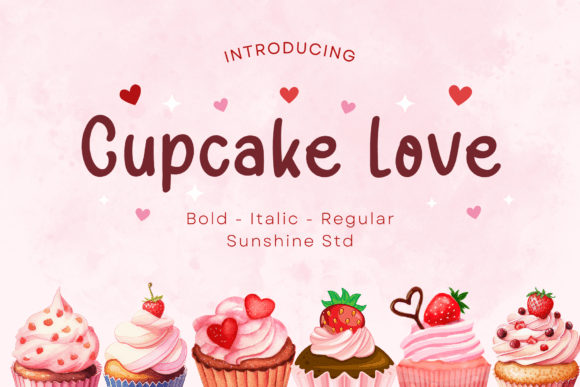
Cupcake Love Font: The Sweetest Addition to Your Design Collection
Are you looking for a font that can add a touch of sweetness and charm to your designs? Look no further than Cupcake Love, the delightful handwriting font that is inspired by the joy of baking and the whimsical nature of childhood treats.
What is Cupcake Love Font?
Cupcake Love is a handwriting font that is designed to bring a sprinkle of fun and playfulness to your designs. With its whimsical and curly letters, this font is perfect for those who want to add a personal touch to their projects. Whether you’re designing a logo, a greeting card, or a social media post, Cupcake Love is sure to make your design stand out.
Inspiration Behind Cupcake Love
The inspiration behind Cupcake Love comes from the joy of baking and the magic of childhood treats. Who doesn’t love a good cupcake? The colorful sprinkles, the creamy frosting, and the moist cake all come together to create a treat that is both delightful and Instagram-worthy. With Cupcake Love, you can bring that same sense of joy and whimsy to your designs.
Features of Cupcake Love Font
So, what makes Cupcake Love so special? Here are just a few of its key features:
• Handwritten letters: Each letter in Cupcake Love is carefully crafted to look like it was written by hand. This gives the font a personal and playful touch that is perfect for a variety of designs.
• Whimsical and curly: The letters in Cupcake Love are whimsical and curly, with a playful bounce that is sure to add a smile to your face.
• Perfect for designs: Whether you’re designing a logo, a brochure, or a social media post, Cupcake Love is the perfect font to add a touch of sweetness and charm.
Uses of Cupcake Love Font
So, what can you use Cupcake Love for? The possibilities are endless! Here are just a few ideas to get you started:
• Wedding invitations: Add a touch of whimsy and romance to your wedding invitations with Cupcake Love.
• Party decorations: Use Cupcake Love to create custom party decorations, such as banners and garlands.
• Social media posts: Add a playful touch to your social media posts with Cupcake Love.
• Logo design: Use Cupcake Love to create a custom logo for your business or brand.
Benefits of Using Cupcake Love Font
So, why should you use Cupcake Love in your designs? Here are just a few benefits:
• Adds a personal touch: Cupcake Love adds a personal and playful touch to your designs that is sure to make them stand out.
• Increases engagement: The whimsical and curly letters in Cupcake Love are sure to grab the attention of your audience and increase engagement.
• Perfect for kids and adults: Whether you’re designing for kids or adults, Cupcake Love is sure to bring a smile to their face.
In conclusion, Cupcake Love is the perfect font for anyone looking to add a touch of sweetness and charm to their designs. With its whimsical and curly letters, this font is sure to bring a smile to your face and engage your audience. So why wait? Download Cupcake Love today and start creating your own sweet designs!
• What is Cupcake Love font? Cupcake Love is a handwriting font that is inspired by the joy of baking and the whimsical nature of childhood treats.